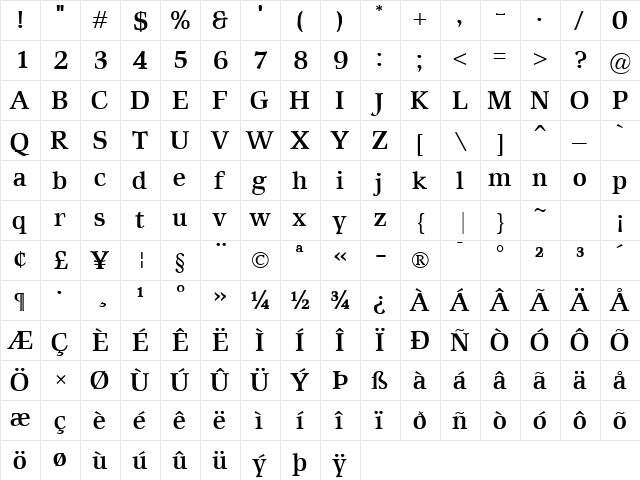
Rustika Bold
Design Context for Rustika Typeface
Rustika is a composed and adaptable typeface that performs quietly and consistently across a wide range of design contexts. The heavy weight commands attention and anchors typographic hierarchies.